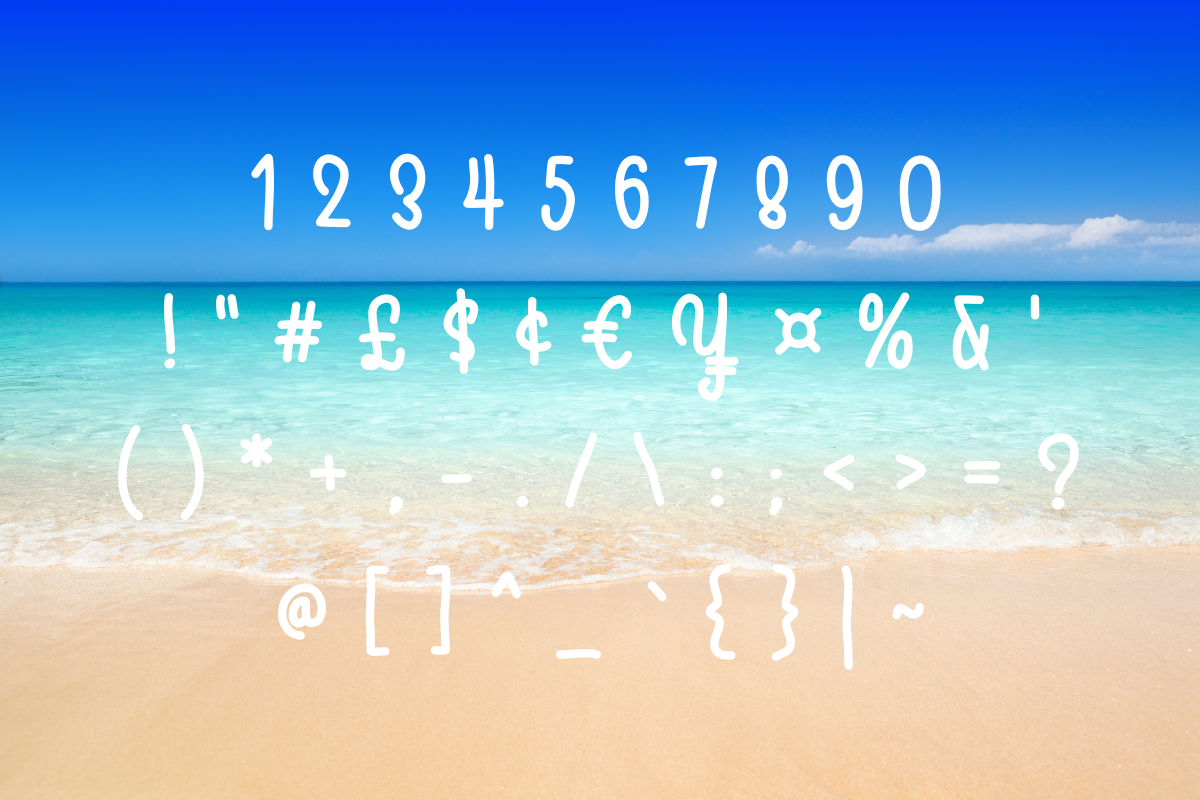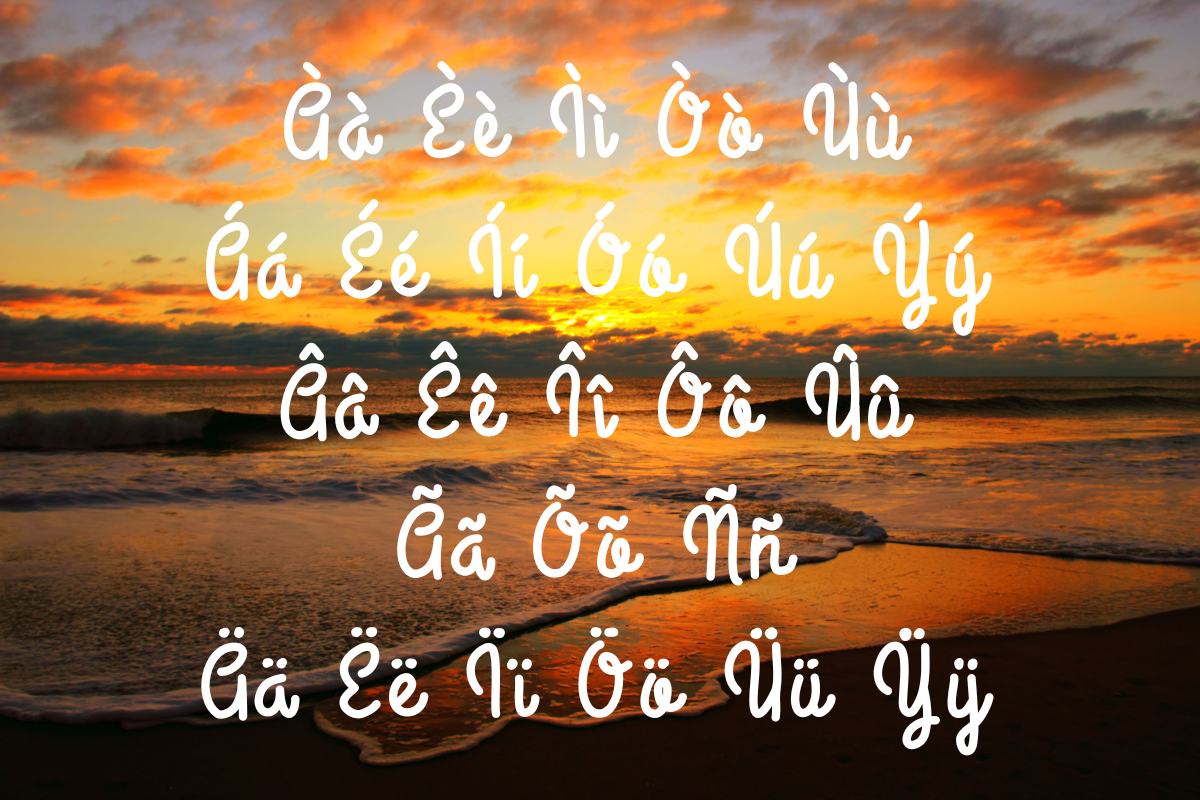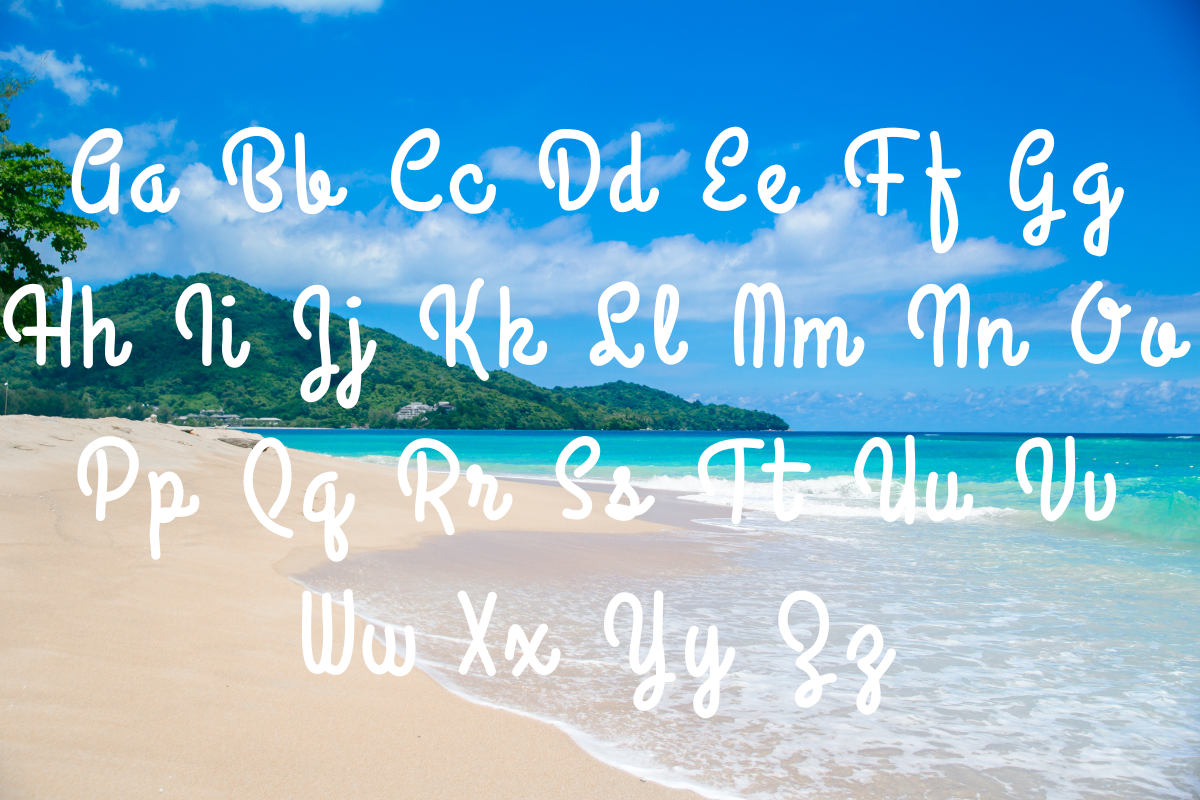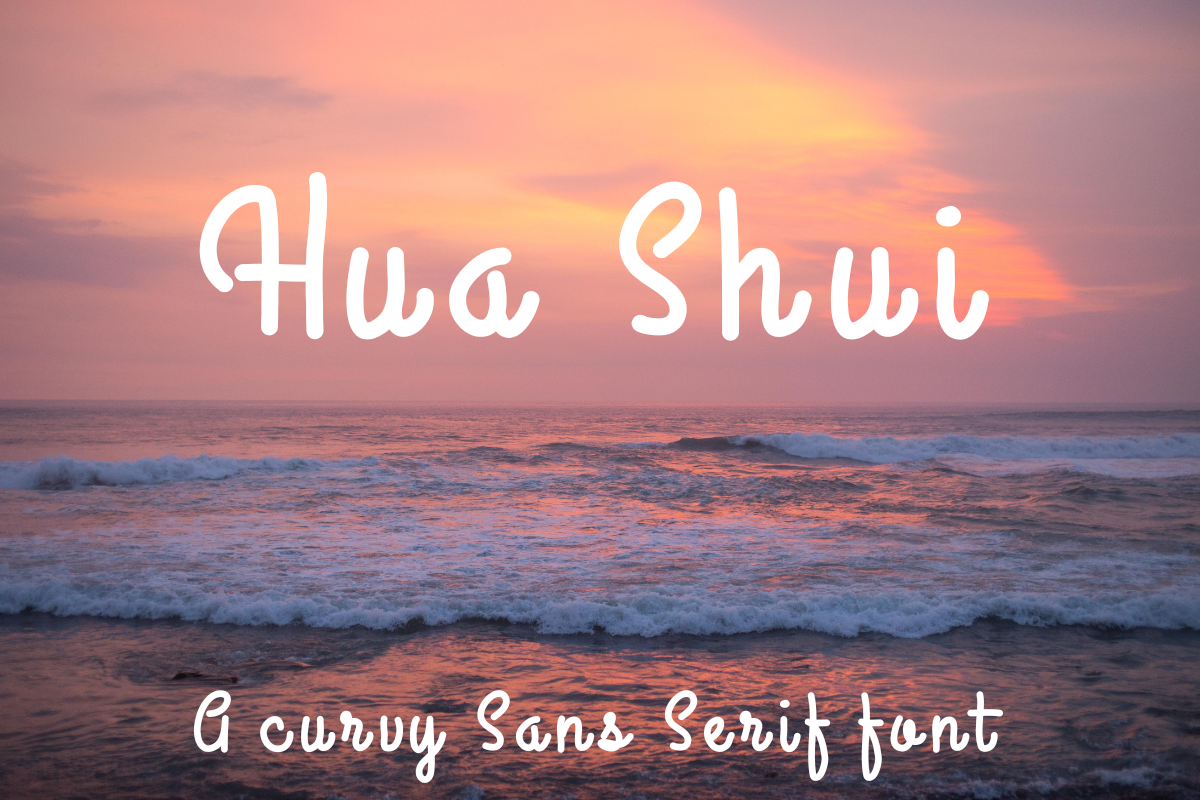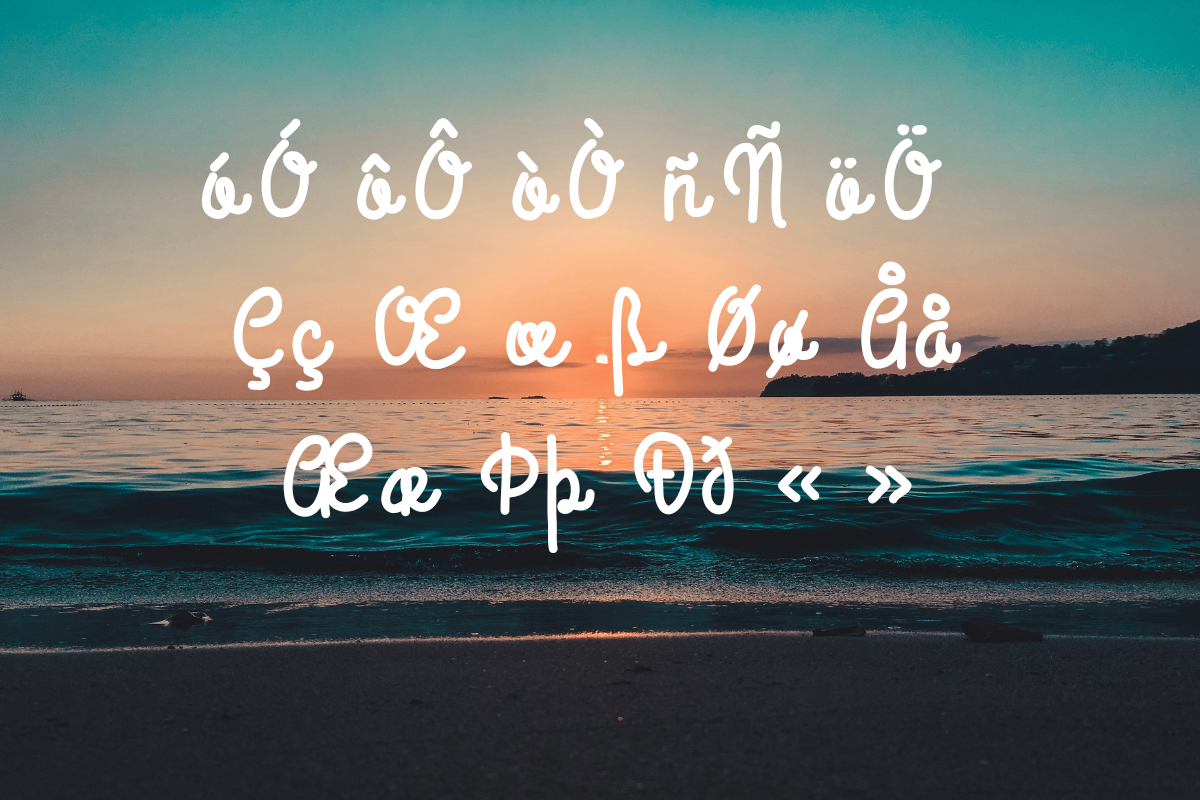
Hua Shui font
Hua Shui is a curvy Sans Serif font. Hua means splendid, illustrious in the masculine and flower, blossom in the feminine. Shui means water. Perfect for those projects that need a stylish curvy typeface.